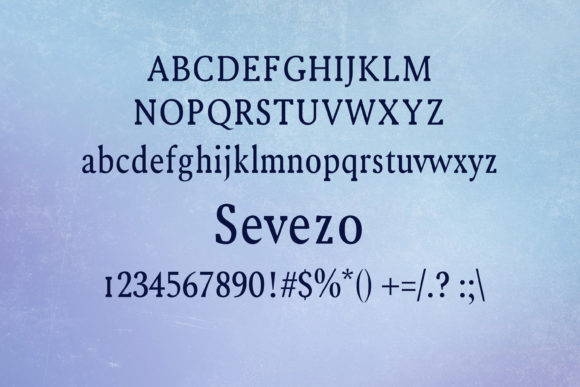
Introduction to Sevezo Font
Do you remember that moment when a design idea suddenly sparks in your mind, and you can’t wait to bring it to life? It’s like a burst of creativity, and all you need is the perfect tool to turn it into a masterpiece. For designers, this moment is precious, and the right font can make all the difference.
That’s where the Sevezo Font comes in – a high-quality design resource that can elevate any creative project to new heights. With its unique style and versatility, Sevezo Font is the ideal choice for designers looking to add a touch of sophistication and elegance to their work. Whether you’re working on a branding project, creating a website, or designing a visual identity, Sevezo Font is the perfect companion to help you achieve your vision.
Key Features of Sevezo Font
- High-quality font design with a unique, modern aesthetic, perfect for creative projects.
- Transparent background, allowing for seamless integration into your design without any background noise.
- Unique characteristics include a bold, eye-catching style and a wide range of glyphs, making it ideal for creative projects that require a statement font.
Honest Review: Sevezo Font
I recently had the chance to work with the Sevezo Font, a free download that I found to be a fantastic addition to my design resource collection.
Here are some things that I liked about the Sevezo Font:
- ✨ The high quality of the font, which includes a wide range of styles and weights.
- ✨ The transparent background, which makes it easy to use in creative projects that require a clean and simple aesthetic.
As for limitations, I did find a few things that were worth mentioning:
- ⚠️ The font’s limited compatibility with older versions of Adobe Creative Suite.
- ⚠️ Some users may find the font’s quirky style to be too avant-garde for their taste.
Overall, I’m really impressed with the Sevezo Font. It’s a high-quality design resource that’s perfect for creative projects that require a unique and eye-catching font. With its transparent background and wide range of styles, it’s a great addition to any design collection.
Tips for Getting the Most Out of Sevezo Font
Experiment with different font sizes and styles to add visual interest to your design. Use the transparent background of Sevezo Font to create layered designs. Combine Sevezo Font with other design elements to create unique and creative projects.
Sevezo Font is perfect for creating social media graphics, blog posts, and presentations. Its high-quality design and transparent background make it ideal for use in a variety of creative projects.
Does the Sevezo Font have a transparent background?
Yes, the Sevezo Font is designed with a transparent background, making it easy to use in designs that require a clean and modern look. This feature is particularly useful for designers working on creative projects that involve layering text and graphics.